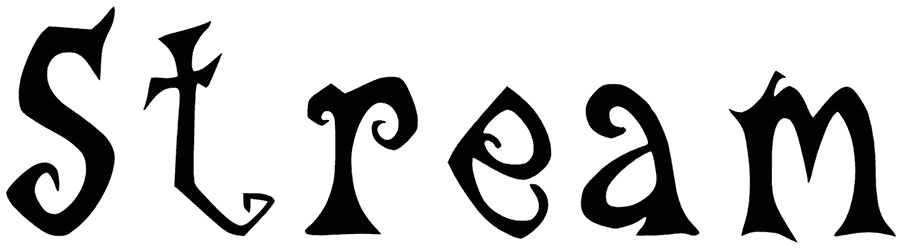
Stream Font
The Stream is a high-quality, whimsical font that also has a cool, decorative touch. Despite the lack of a number of characters, it has many potentially important uses, such as logo design, blog headlines, branding, and…
The Stream is a high-quality, whimsical font that also has a cool, decorative touch. Despite the lack of a number of characters, it has many potentially important uses, such as logo design, blog headlines, branding, and poster making.